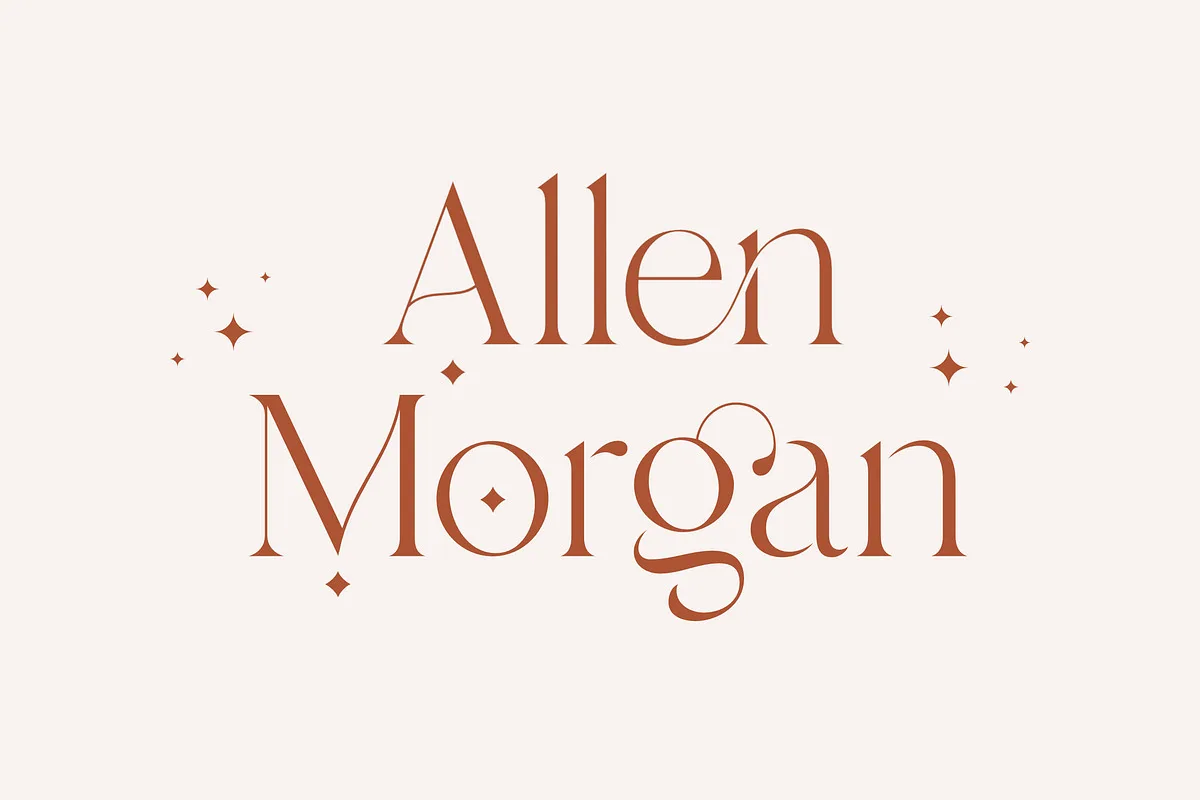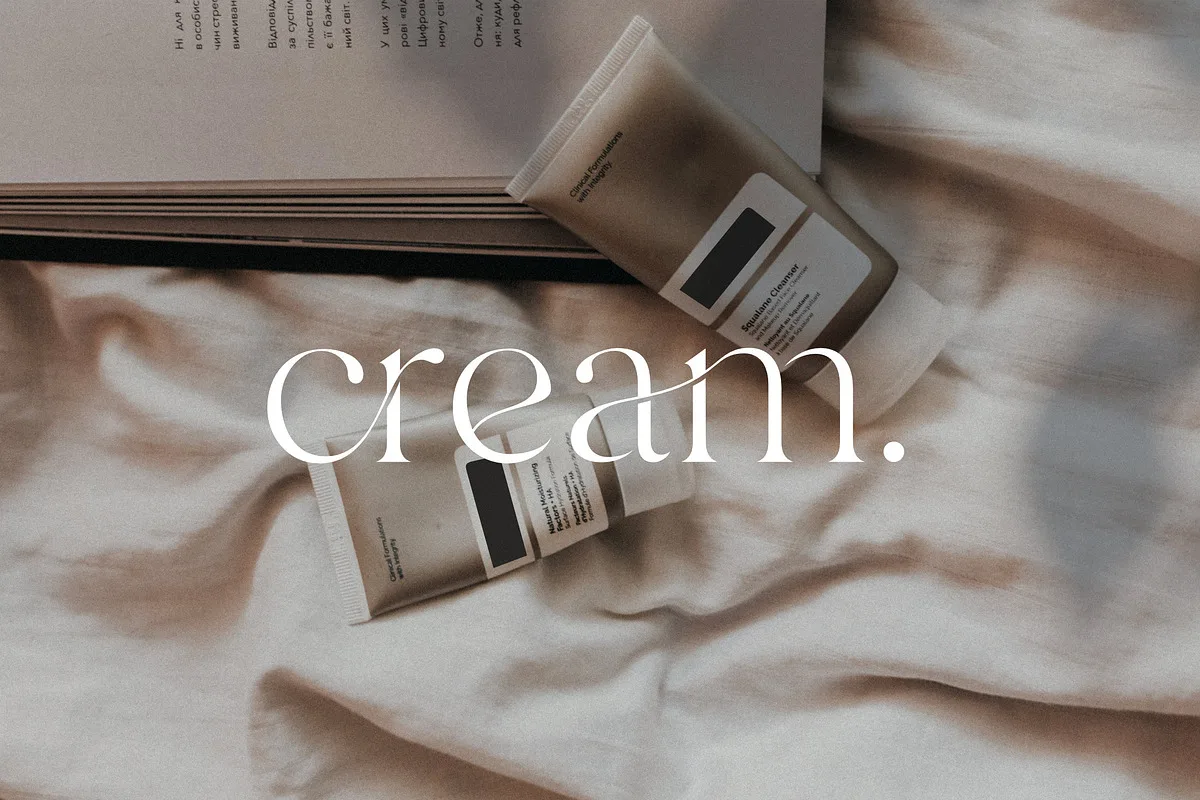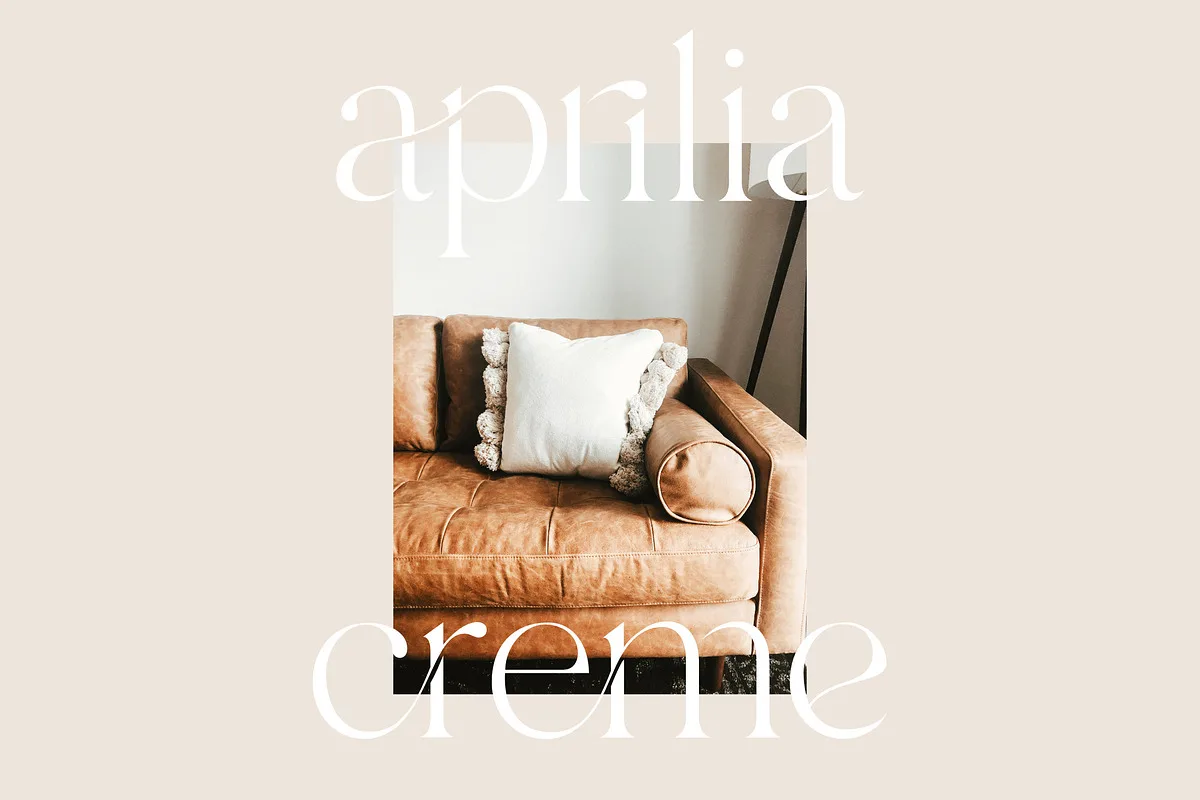
Branch is a modern ligature with an elegant serif style this is perfect for branding, logos, invitations, mastheads and more. This font is PUA encoded which means you can access all of the glyphs and swashes with ease!